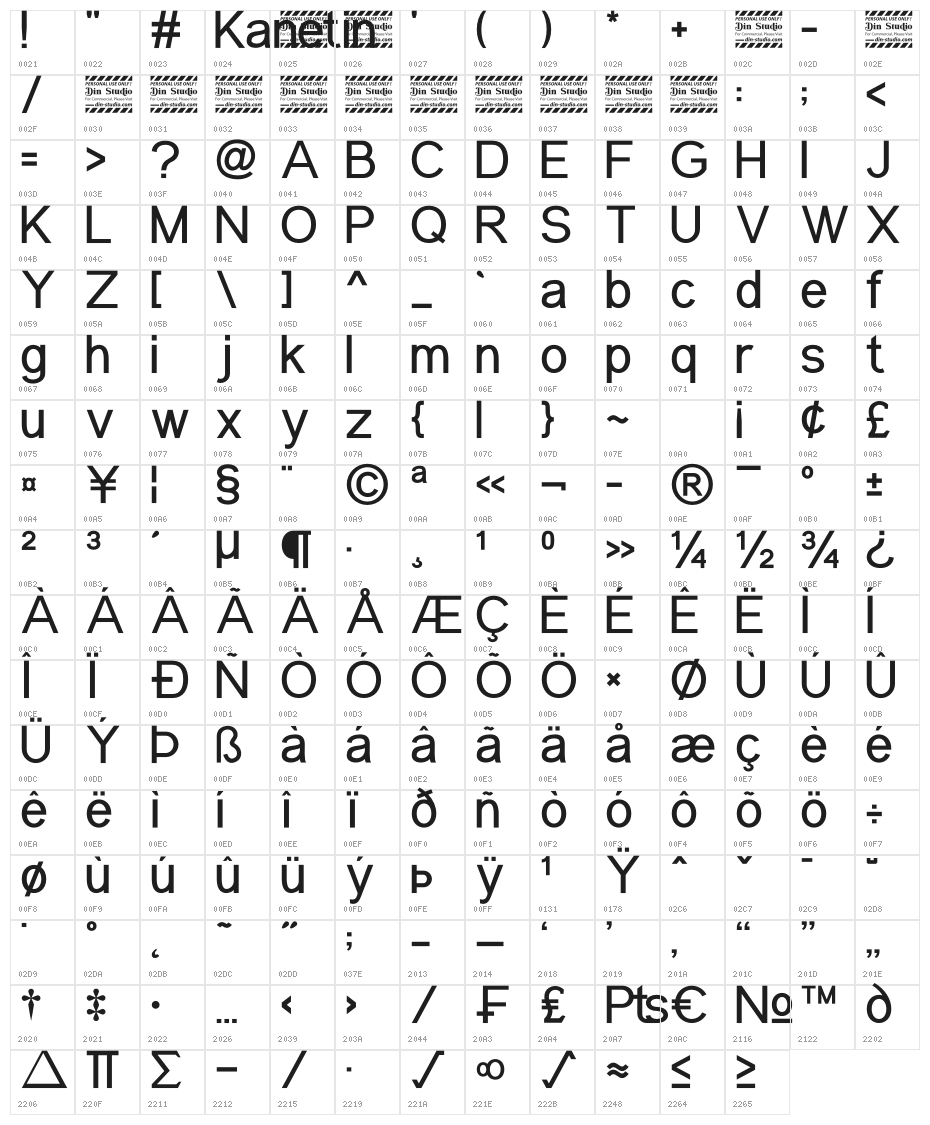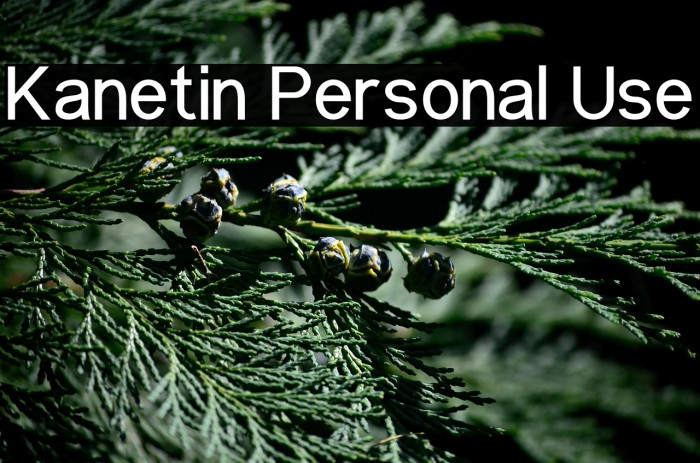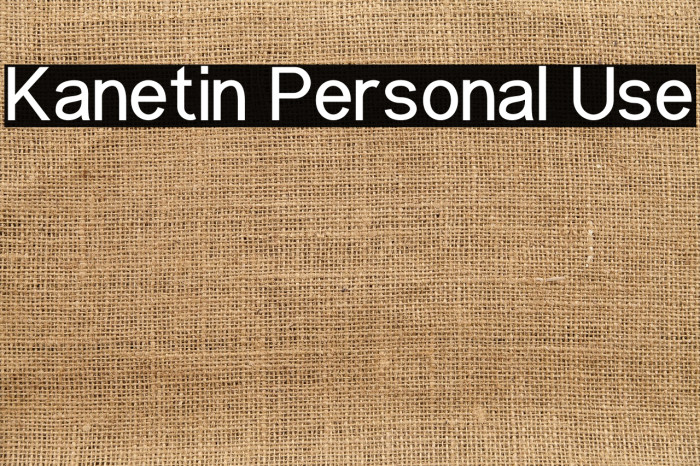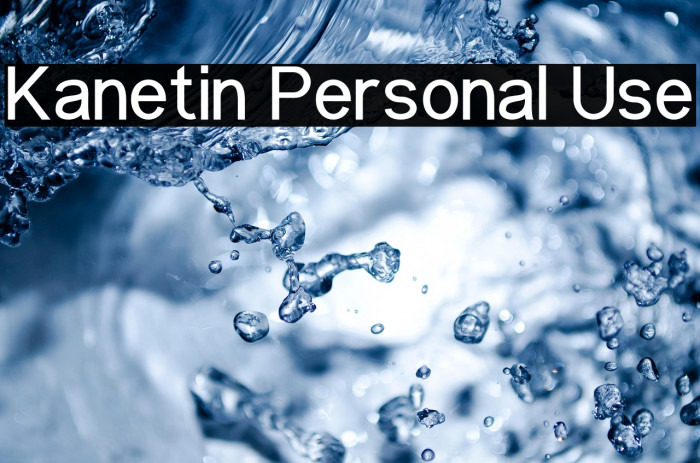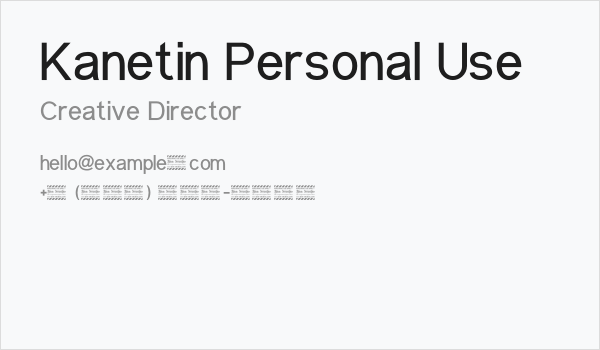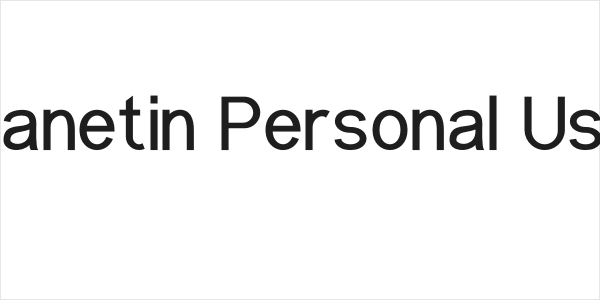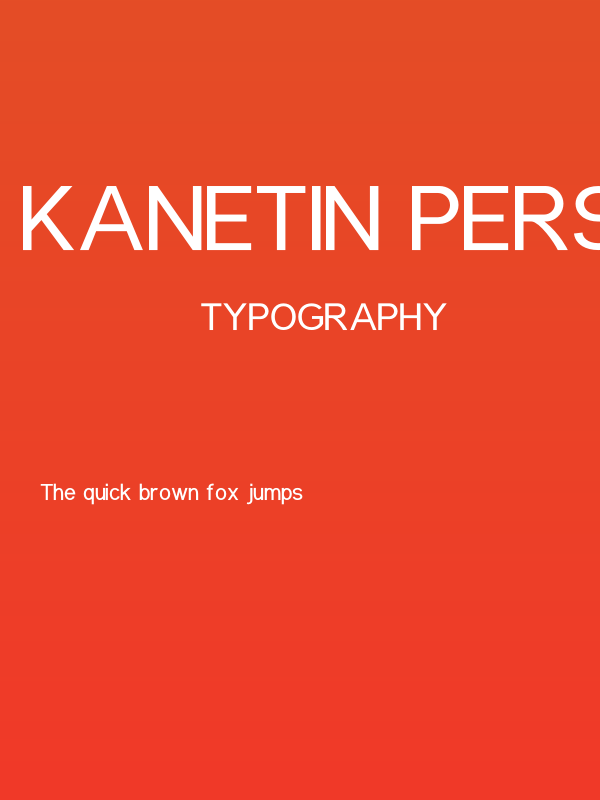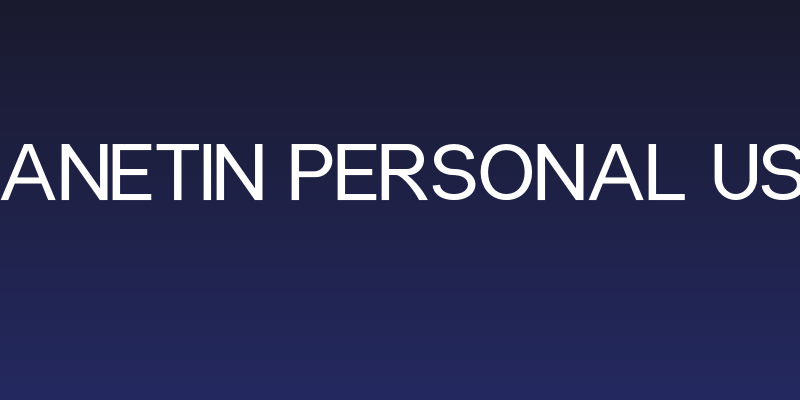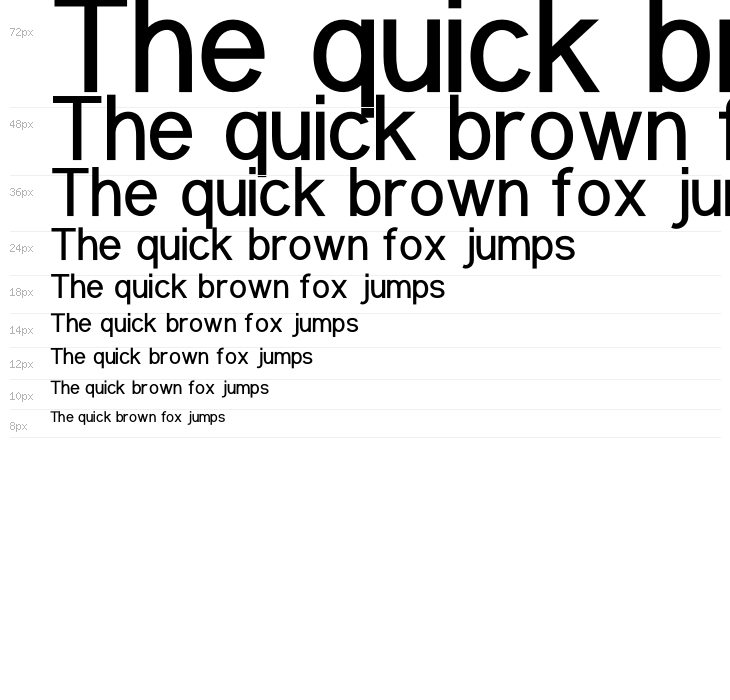
Kanetin Personal Use Font
Kanetin Personal Use Description
This font features a clean and modern sans-serif design, characterized by its uniform stroke width and geometric letterforms. The uppercase and lowercase letters are well-proportioned, offering a clear and legible appearance. The numbers and special characters maintain the same design principles, ensuring consistency throughout. Its simplicity and clarity make it versatile for various design applications.
Proposed ProjectsIdeal for branding, web design, advertising, and editorial projects where clarity and modernity are essential.